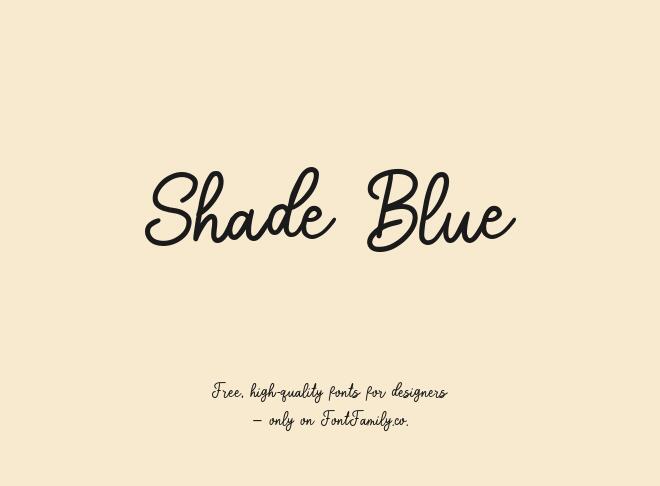
Shade Blue Font
Shade Blue Font is a playful, modern, and display typeface that captures the essence of fun and creativity. Its unique style, inspired by the fluidity of hand-drawn sketches and the precision of geometric shapes, makes it a standout choice for a variety of design projects. Ideal for posters, logos, and website headers, it adds a touch of personality that is sure to captivate your audience. Compared to other fonts, Shade Blue Font offers a fresh, unique aesthetic that is both versatile and visually appealing. Its modern design elements make it a great choice for those looking to step outside of traditional font choices and create something truly unique. Download Shade Blue Font today and start creating designs that are as unique and creative as you are.